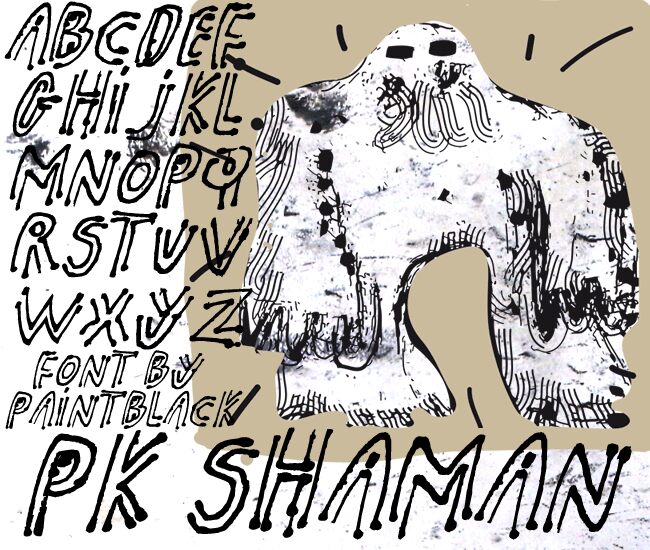
PK Shaman by Paintblack is a free trash-style script display font with unevenly spaced, lanky letters and often abrupt changes in stroke width. Its doubled contours and stray marks look raw and restless.
Independent record labels and streetwear brands could use its scratched, improvised lettering for logos, apparel, and promotional graphics. The rough outlines also suit concert posters and album covers tied to punk, experimental rock, or underground electronic music. Its most likely audience is designers working in DIY music and youth culture, where an unruly handmade mark can become part of the artwork rather than ordinary type.